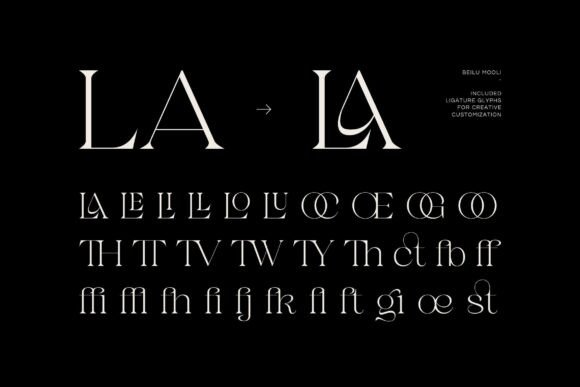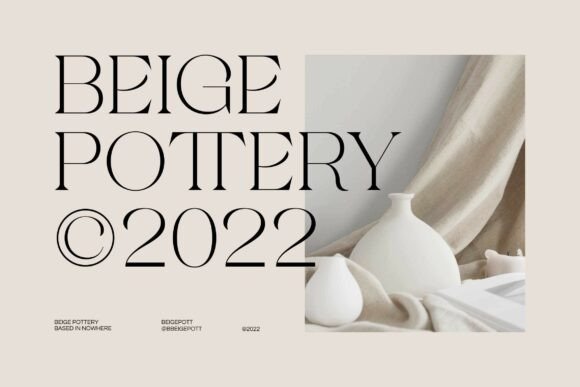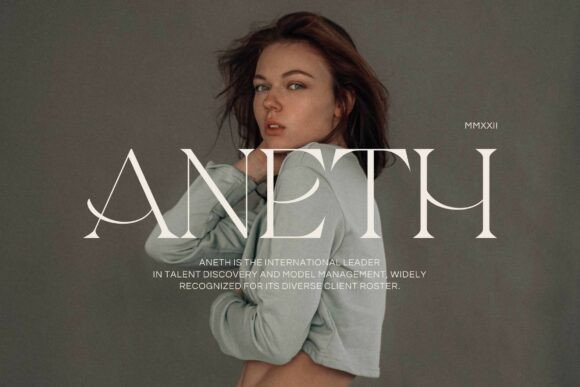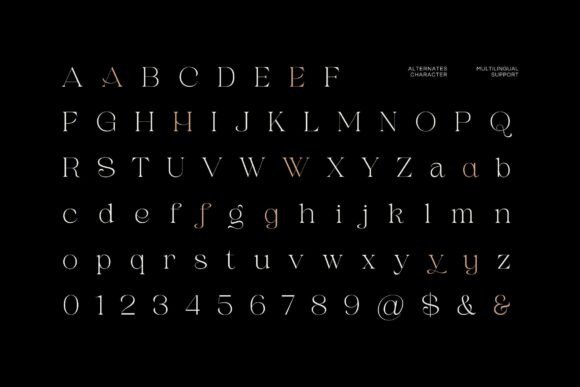
Introduction to Beilu Moolli Font
Remember that moment when you stumbled upon the perfect font for your creative project? The one that elevates your design to the next level and leaves a lasting impression on your audience? For designers, finding that perfect font can be a game-changer. And today, we’re excited to introduce you to the Beilu Moolli Font, a stunning aesthetic display font that’s sure to become your new go-to design resource.
With its unique blend of neoclassical structure and modern flair, the Beilu Moolli Font is perfect for fashion and beauty branding, magazine covers, packaging, posters, invitations, and any project that wants a luxe, contemporary voice. Whether you’re working on a high-end campaign or a personal creative project, this font is sure to add that extra touch of sophistication and elegance.
- Features a unique, intricate design with a blend of traditional and modern elements.
Honest Review: Beilu Moolli Font
I recently stumbled upon the Beilu Moolli Font while searching for a unique design resource for a creative project. As a designer, I was impressed with the quality of this font, and I’d like to share my honest review.
- The Beilu Moolli Font is a high-quality font with a beautiful, elegant design.
- The font may not be suitable for body text, as it’s more decorative and may be difficult to read in large quantities.
- The character set is limited, so you may not find all the special characters you need.
Overall, I’m impressed with the Beilu Moolli Font, and I would recommend it to designers looking for a unique and high-quality design resource. Just keep in mind its limitations, and use it accordingly.
The Beilu Moolli Font is ideal for creative projects such as logos, branding, and marketing materials. It’s also great for designing invitations, menus, and other print materials.